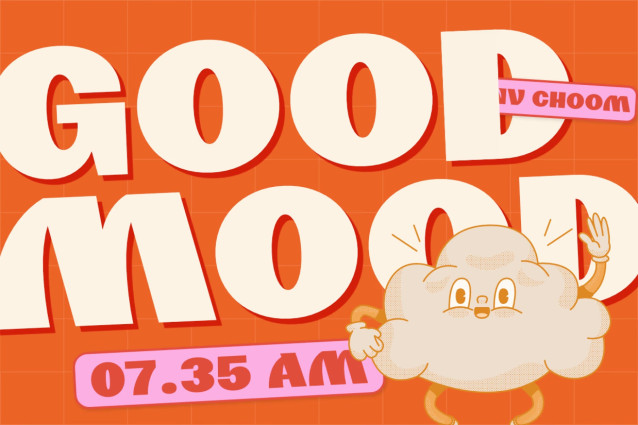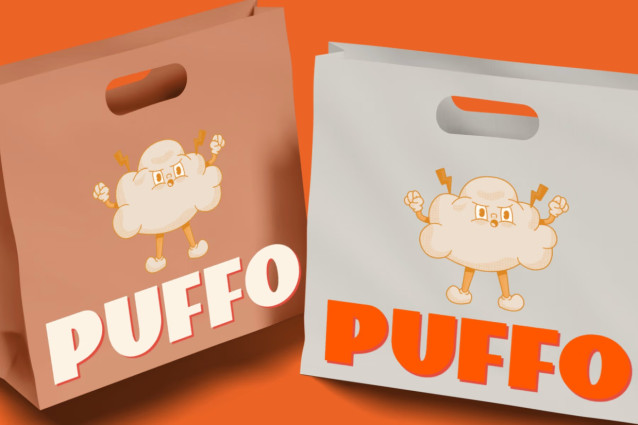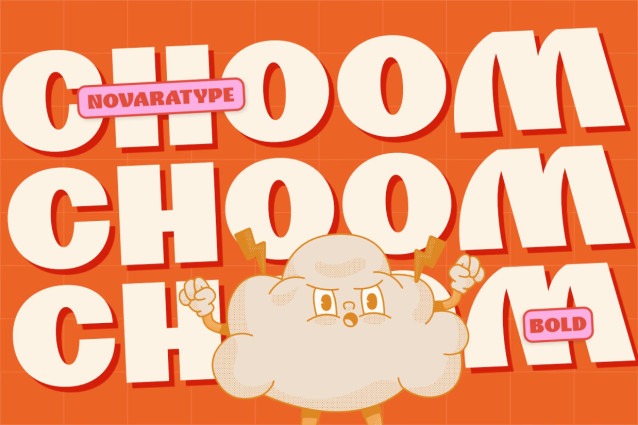
NV CHOOM Bold Sans Display Font is a bold and playful display typeface designed to bring energy, personality, and visual impact to every creative project. Developed by NovaraType, NV CHOOM combines chunky letterforms, soft geometric curves, and expressive proportions—making it an excellent choice for branding, packaging, children’s products, food & beverage identities, posters, social media graphics, and eye-catching display design.
NV CHOOM is thoughtfully crafted to deliver a bold yet friendly typographic personality across a wide range of creative applications. Its rounded forms and playful construction create a welcoming visual tone while maintaining excellent readability at display sizes. Every character is carefully balanced to achieve a lively rhythm that helps brands stand out with confidence and charm.
Whether you’re designing vibrant packaging, playful visual identities, café branding, children’s products, event posters, or engaging digital content, NV CHOOM offers the personality and versatility needed to make every composition memorable. Its distinctive shapes and contemporary aesthetic make it an ideal display font for designers seeking a fun, approachable, and impactful typographic voice.